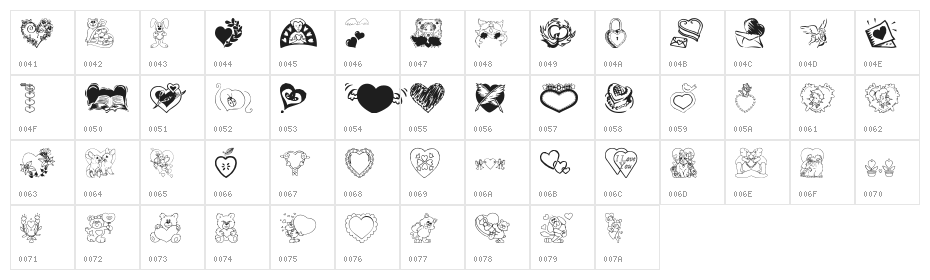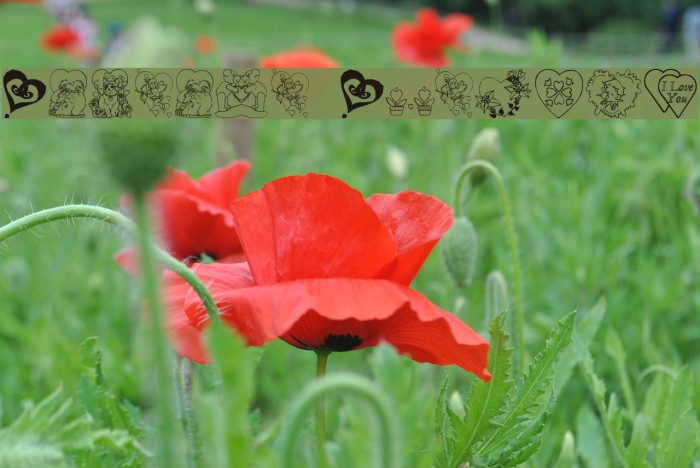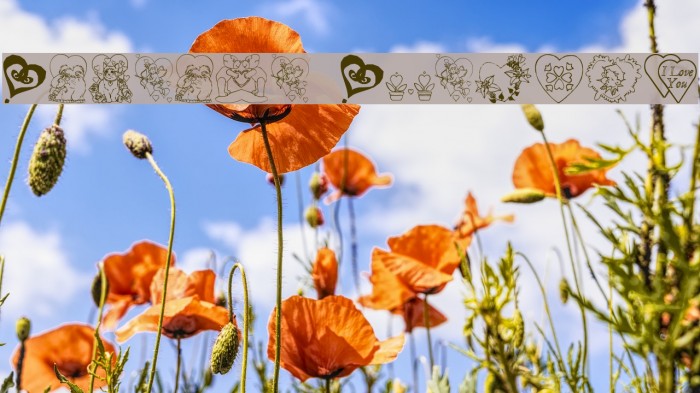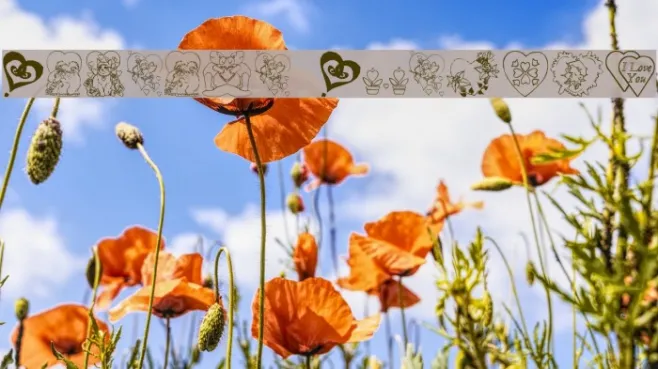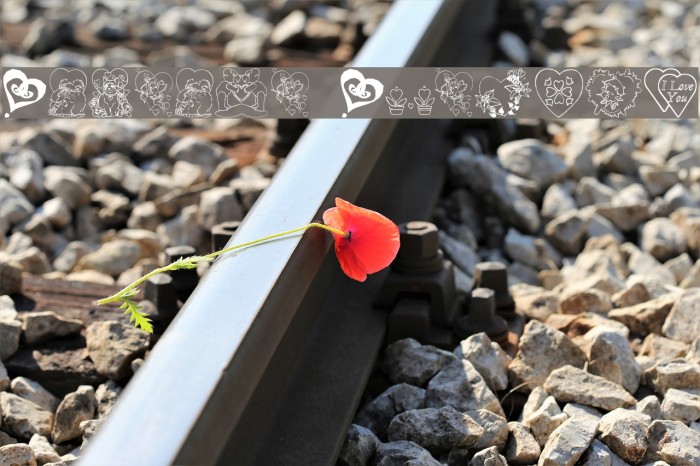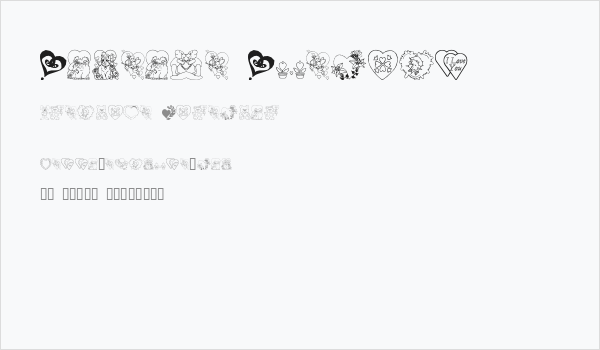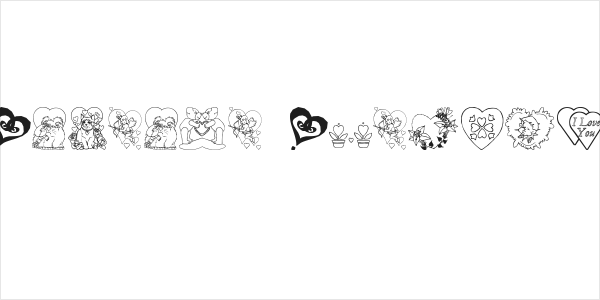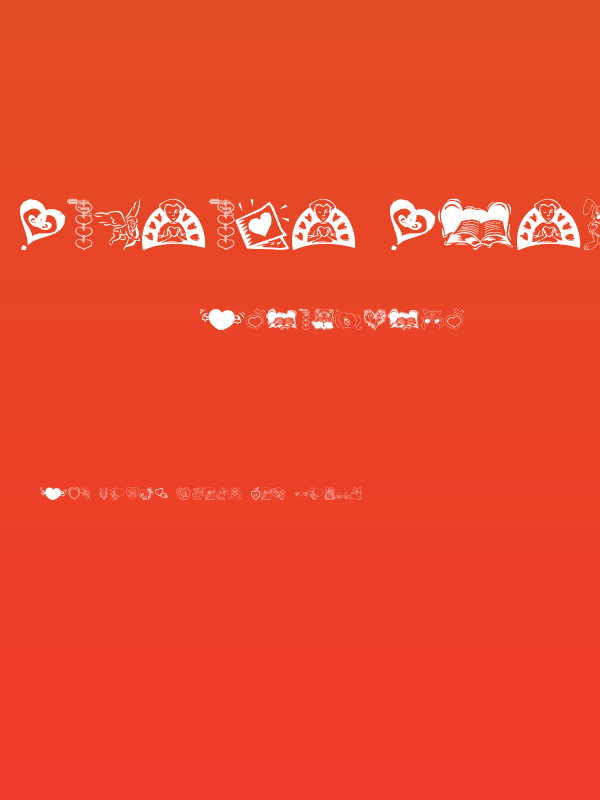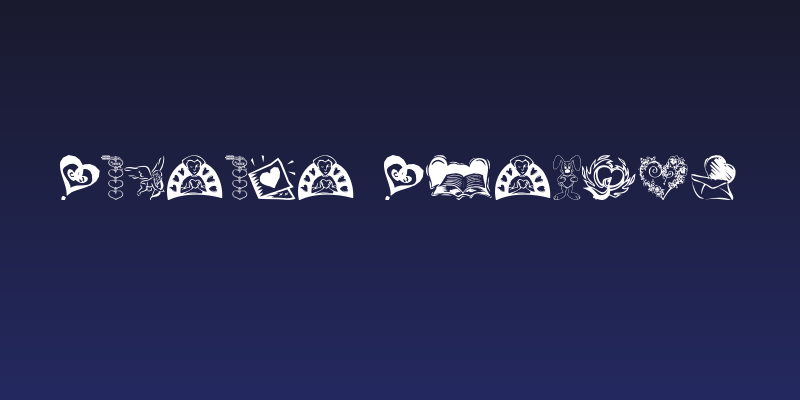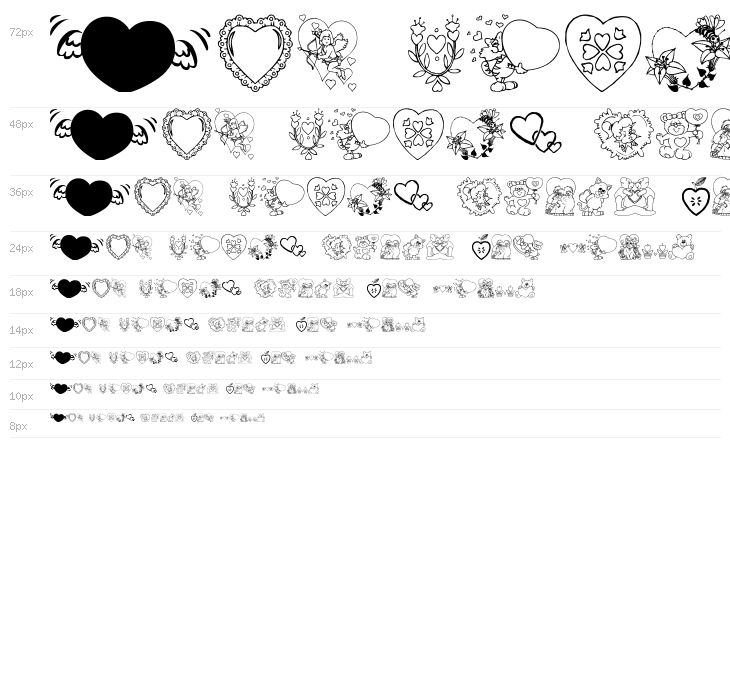
Someone Special Font
Someone Special Description
A decorative display font featuring whimsical, hand-drawn illustrations with a romantic and playful theme, including hearts, animals, flowers, and love-related motifs. The characters are highly stylized and pictorial, making each glyph a unique illustration rather than a traditional letterform.
| Overall Style | Decorative, Playful, Romantic |
| Use Case | Logos, Headlines, Invitations, Greeting cards |
| Proposed Projects | Valentine's Day cards, wedding invitations, romantic event posters, children's crafts, scrapbooking, themed party decorations. |